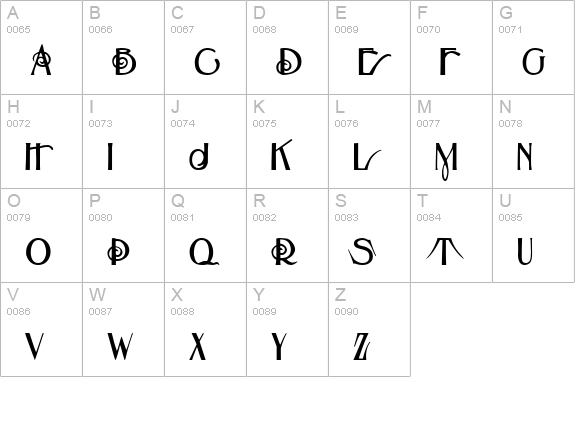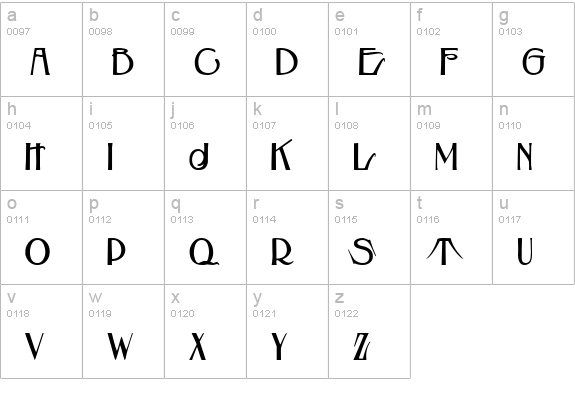
Beauvoir Demo Font Details
Beauvoir Demo font is a stunning and elegant typeface that exudes sophistication and charm. Its delicate serifs and graceful curves give it a timeless and classic appeal, making it perfect for adding a touch of refinement to any design project. This versatile font is ideal for creating invitations, logos, branding materials, and more. The best part? Beauvoir Demo font is completely free to download at FontsMarket.com. That's right, you can enhance your designs with this beautiful typeface without spending a dime. So why wait? Download Beauvoir Demo font today and elevate your projects with its exquisite style and beauty.